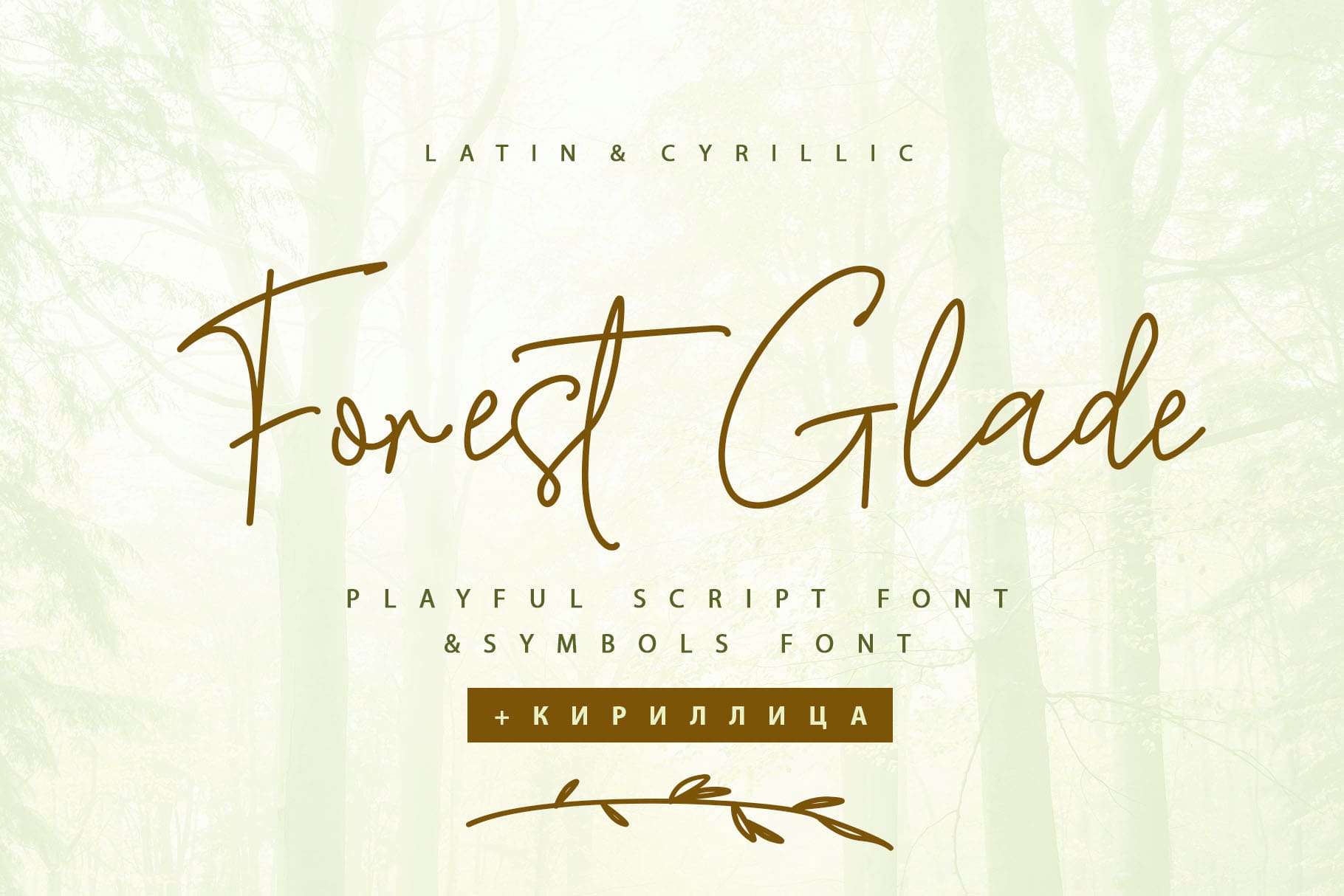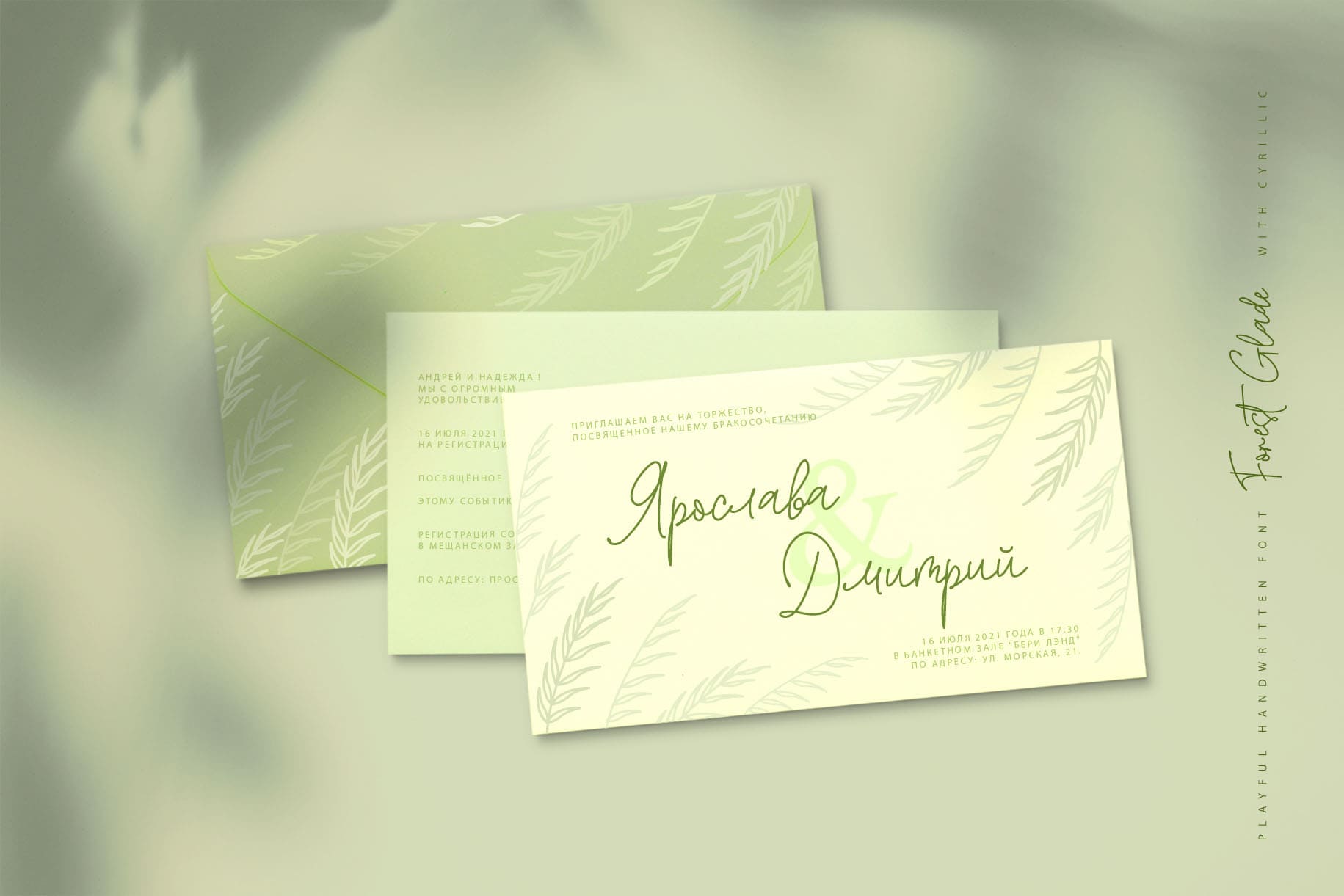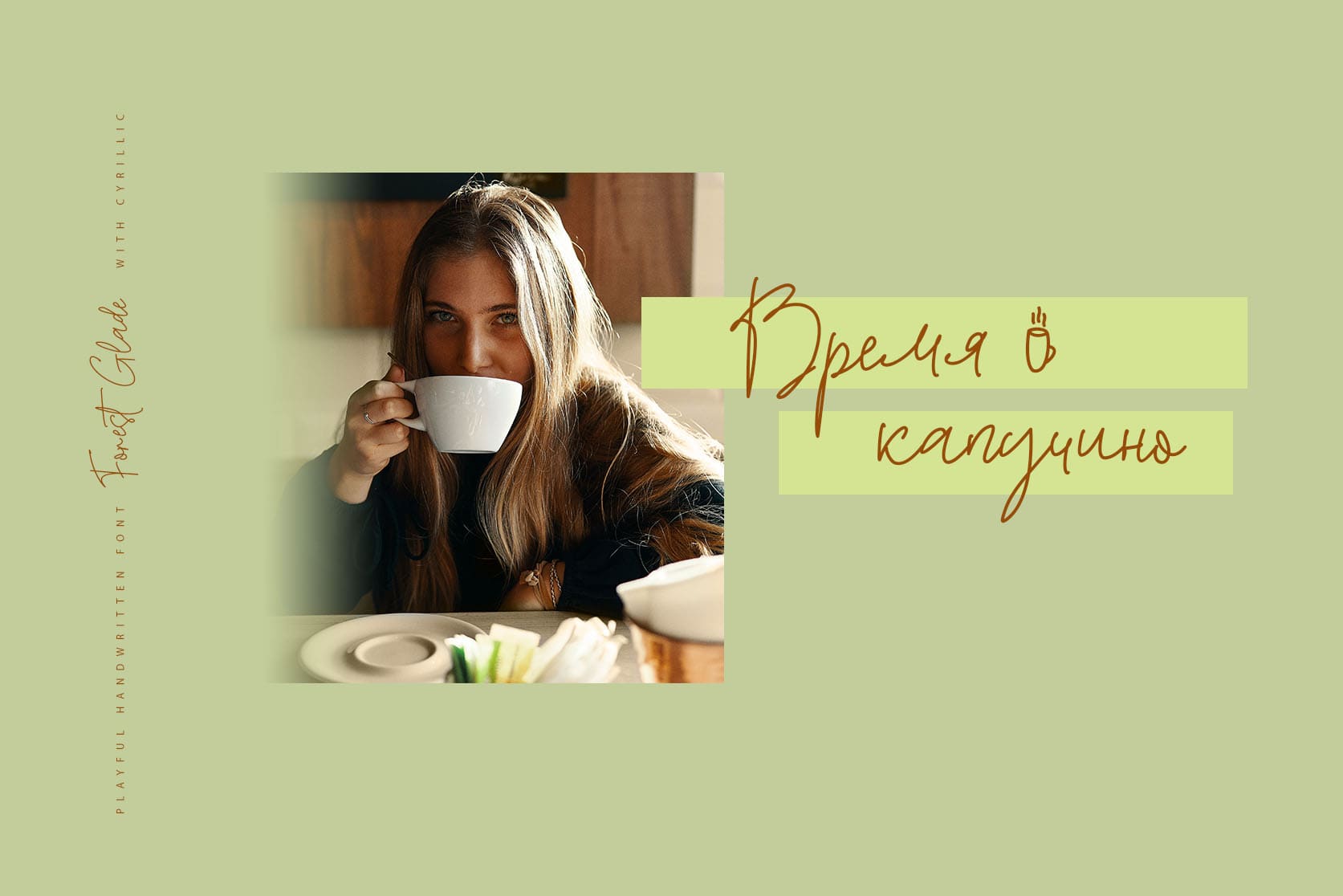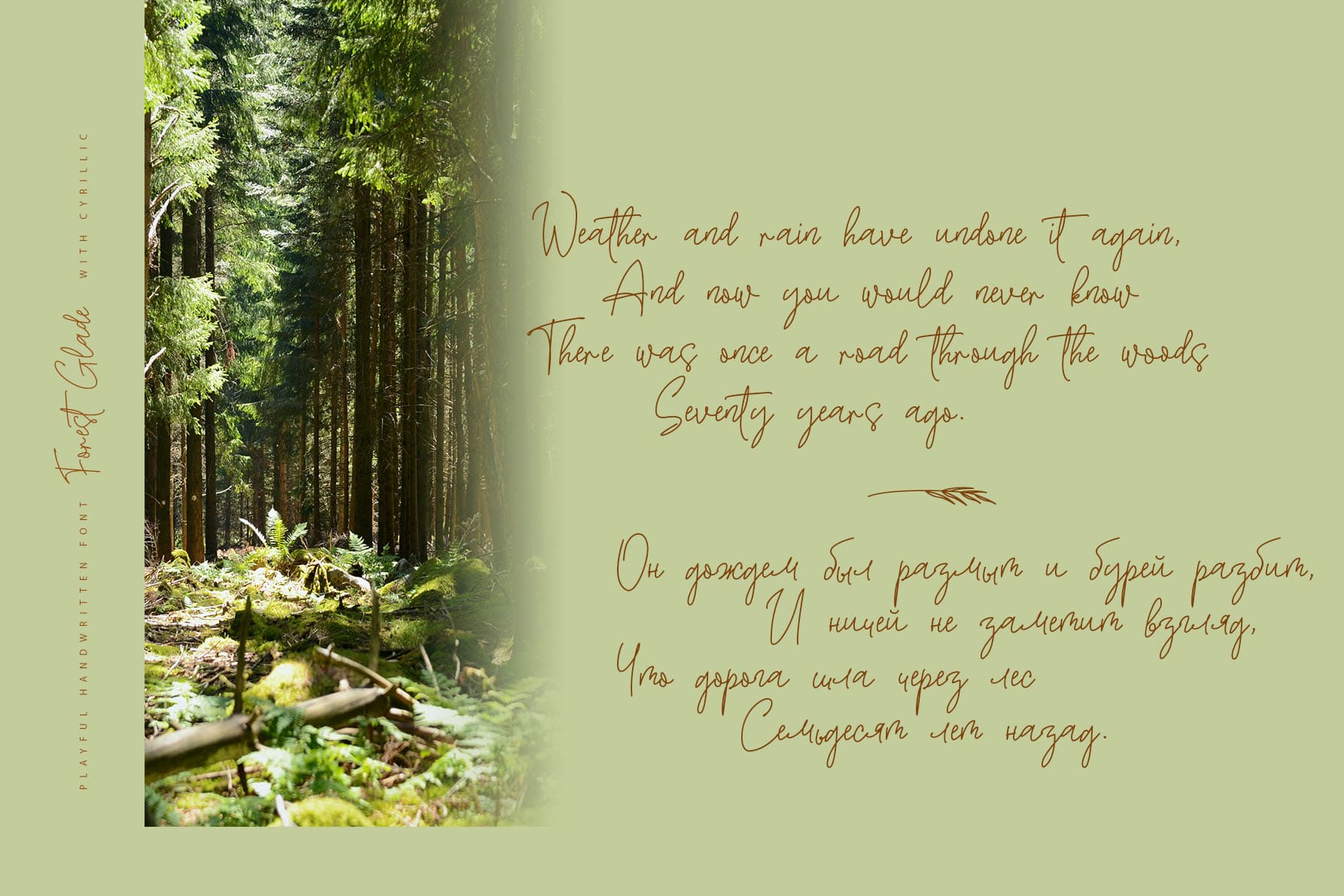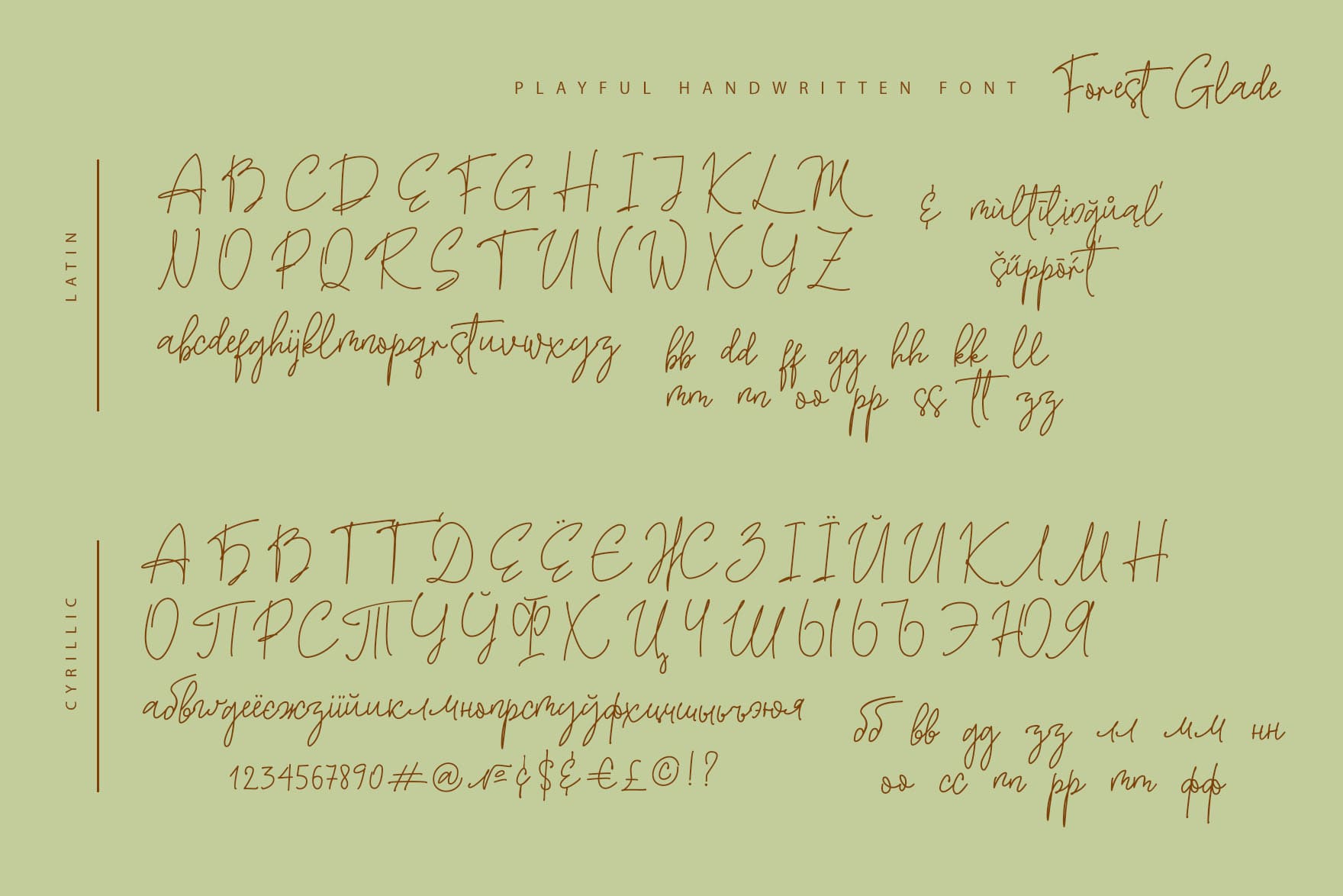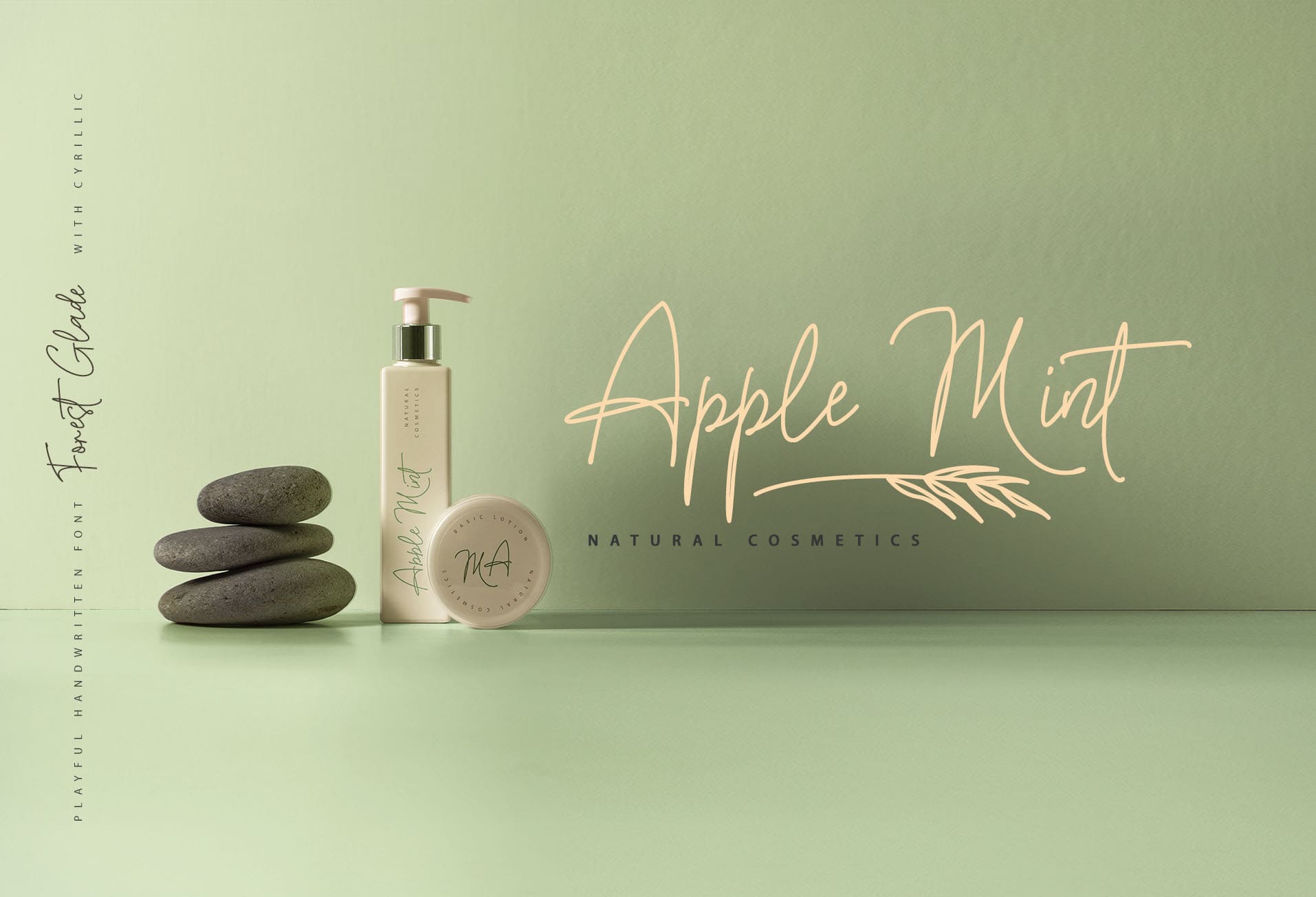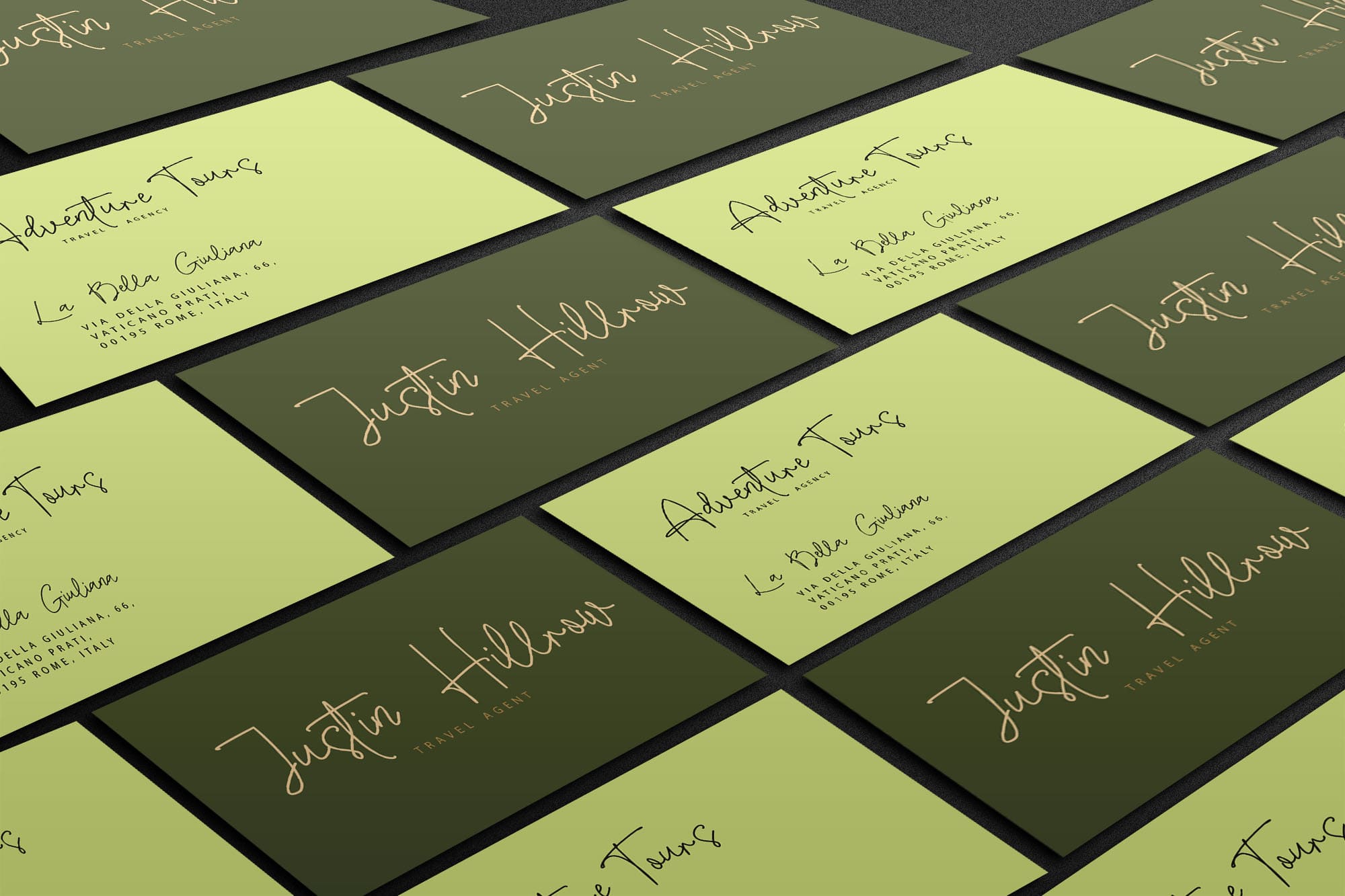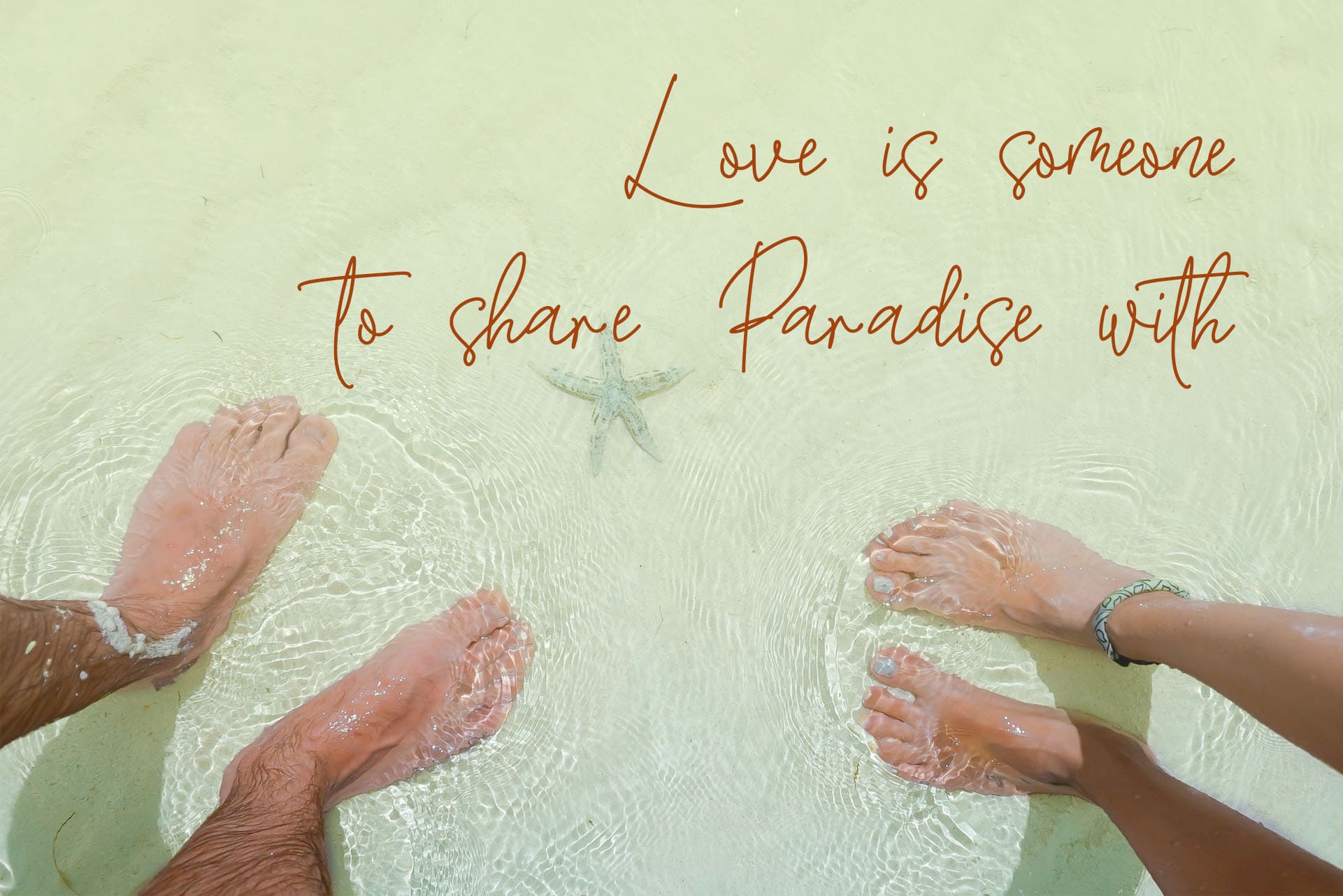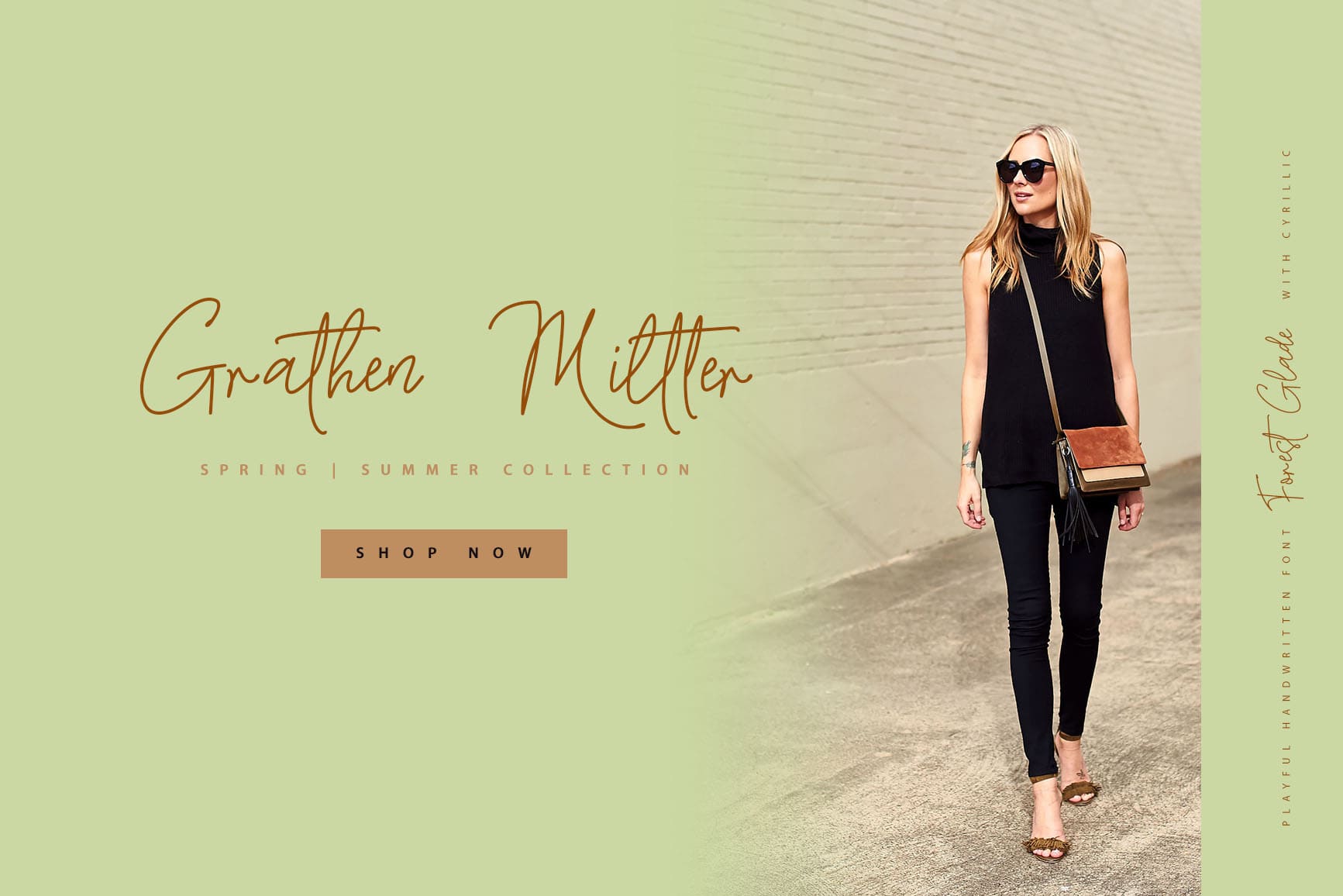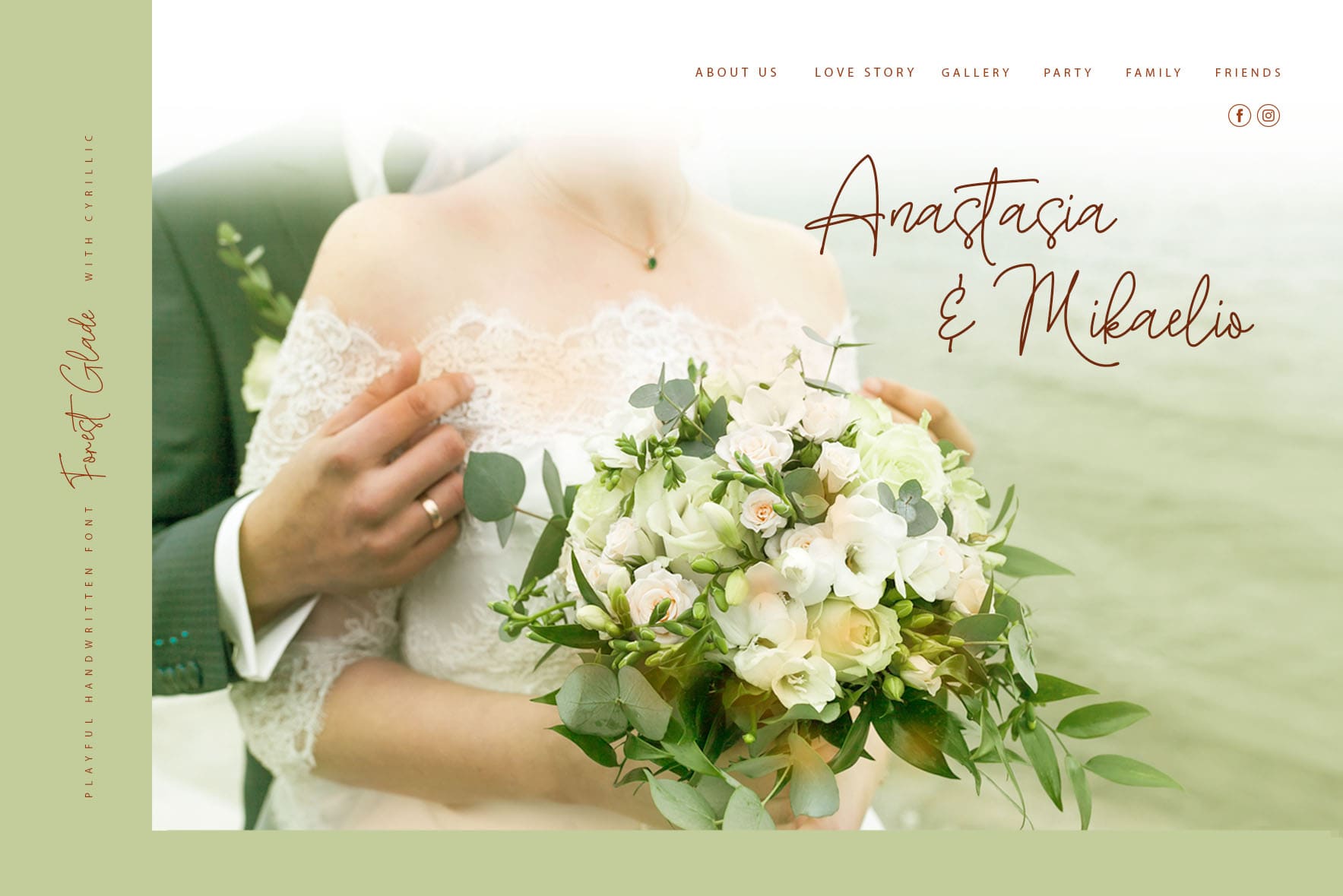
Forest Glade is a playful Cyrillic script font with a dancing baseline perfect for all of your typographic design projects and will look particularly great on mugs, cards, wedding stationery and so much more.
Forest Glade Cyrillic script includes a full set of stunning Uppercase and Lowercase letters, numerals, punctuations and 27 ligatures, giving a realistic hand-lettered styled look.
Forest Glade Symbols is a font with 26 unique and original hand-drawn illustrations. Extensive language support is included for all Western European, Central, and South East European languages. Multilingual Support is provided for the following 27 languages: Afrikaans, Albanian, Basque, Bosnian, Catalan, Danish, Dutch, English, Estonian, Faroese, Filipino, Finnish, French, Galician, Indonesian, Irish, Italian, Malay, Norwegian Bokmål, Portuguese, Slovenian, Spanish, Swahili, Swedish, Turkish, Welsh, Zulu
Cyrillic glyphs support is available for Russian, Belorussian, Bulgarian, and Ukrainian languages.